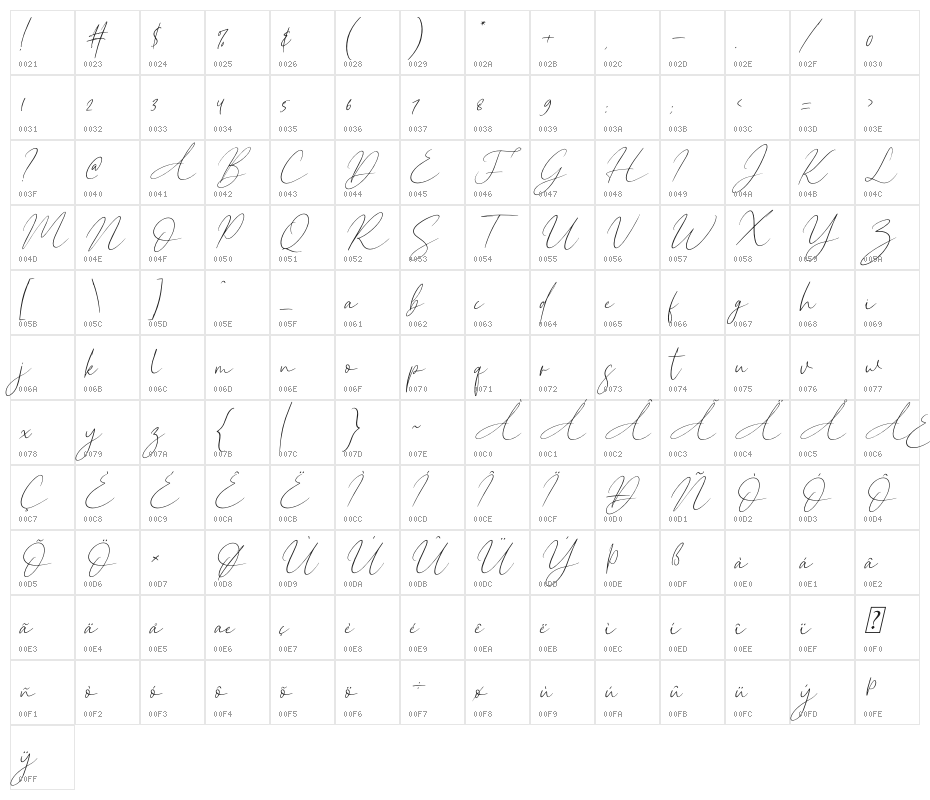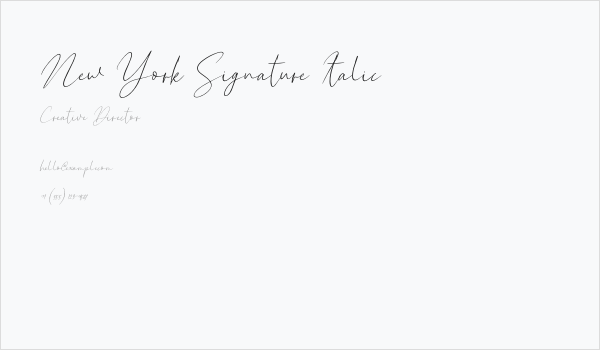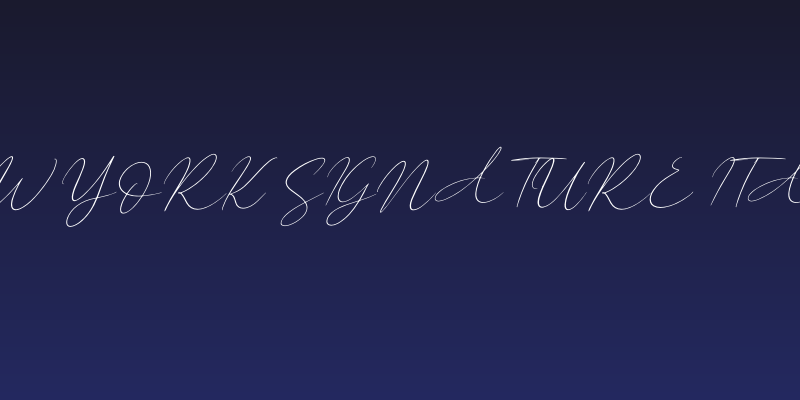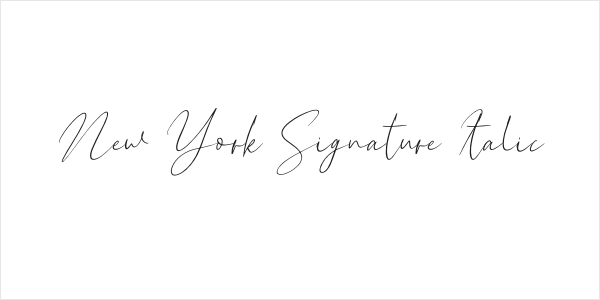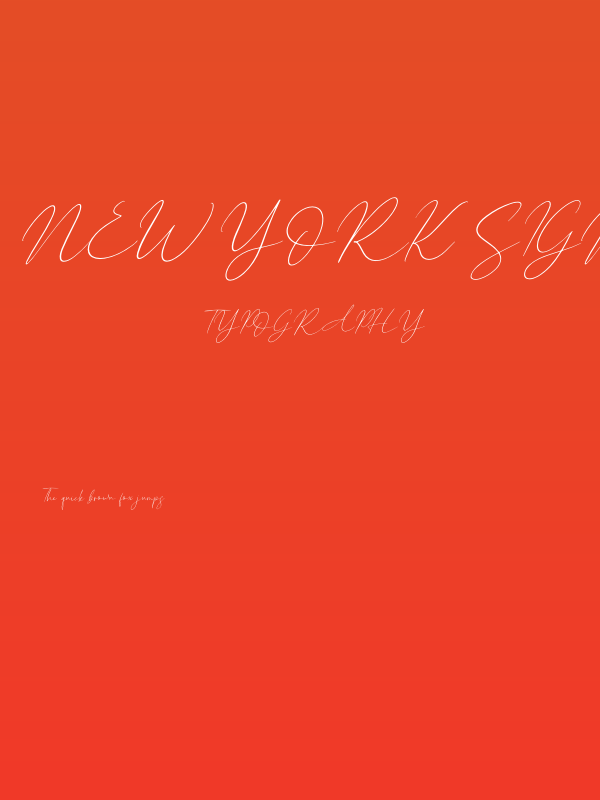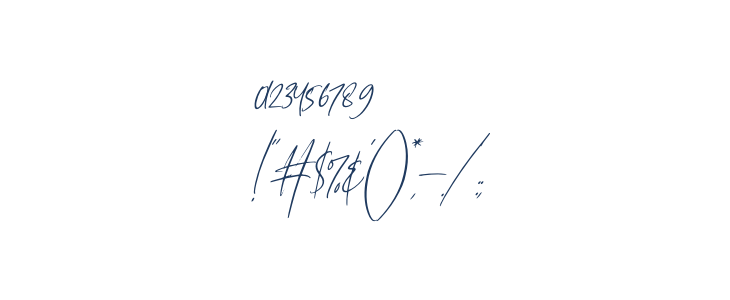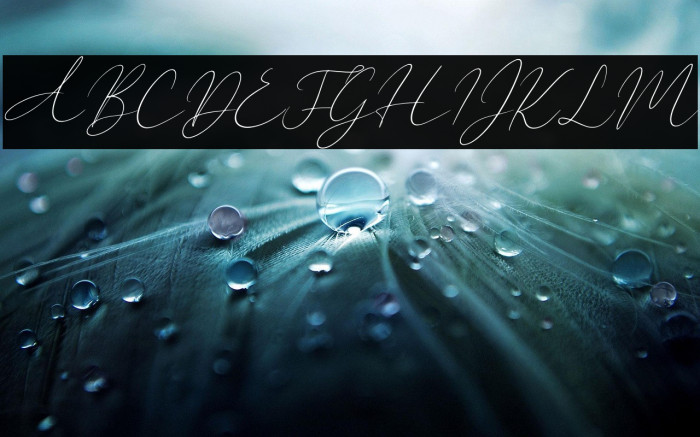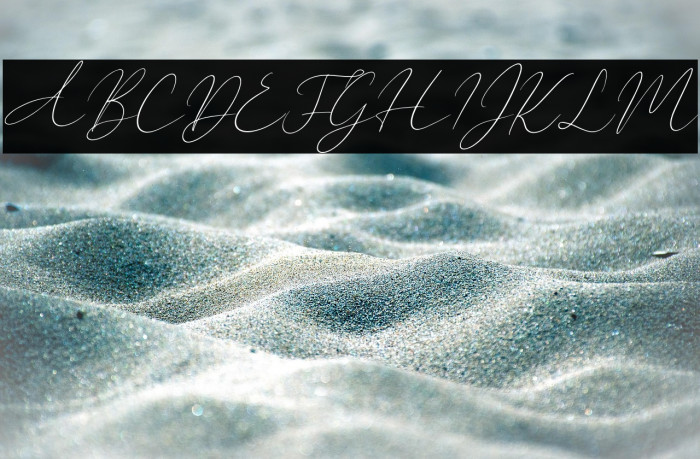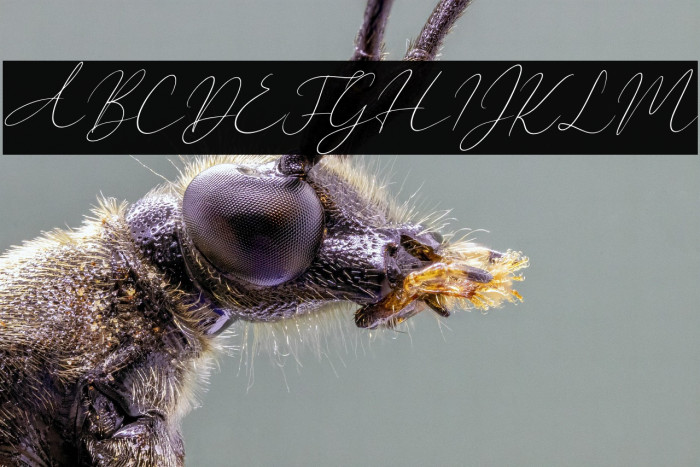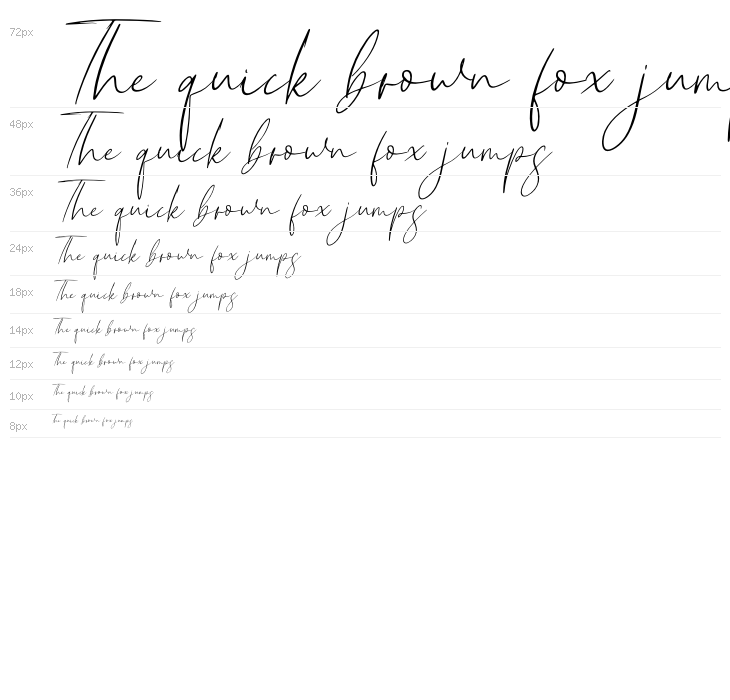
New York Signature Italic Font
New York Signature Italic Description
This elegant script font exudes a sense of sophistication and fluidity, characterized by its smooth, flowing lines and delicate curves. The letters are connected in a seamless manner, creating a handwritten appearance that is both stylish and personal. The uppercase letters are slightly more ornate, while the lowercase letters maintain a consistent rhythm and balance. The numerals and special characters are crafted with the same attention to detail, ensuring a cohesive look across all elements. This font is perfect for adding a touch of elegance to any design project.
| Overall Style | Elegant, Handwritten |
| Proposed Projects | Ideal for wedding invitations, personal branding, elegant logos, and upscale packaging. |